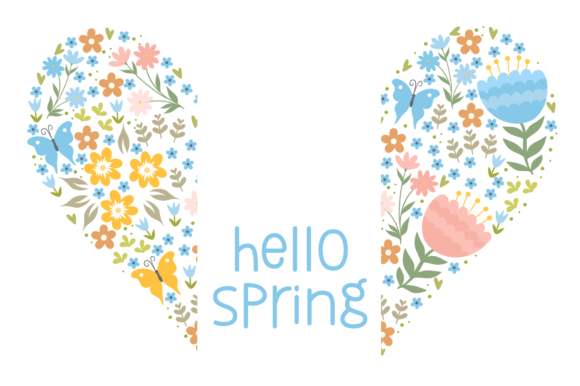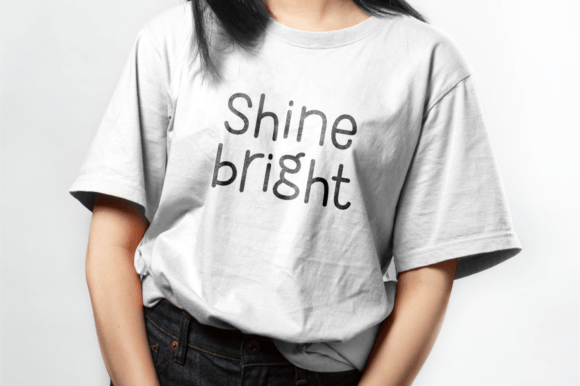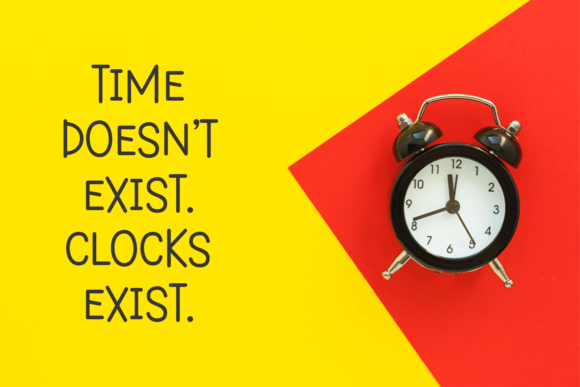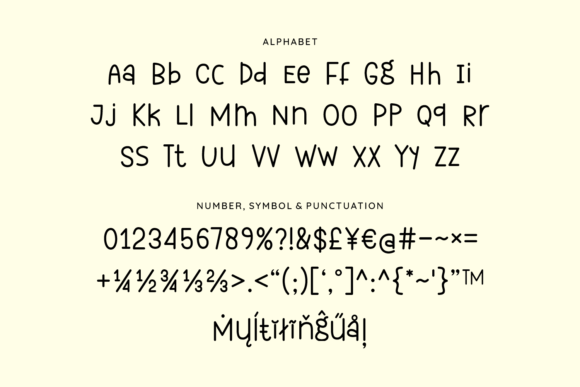
Introduction to Make It Catchy Font
Have you ever stared at a blank page, trying to spark that creative flame that fuels your next big project? For designers, this moment is all too familiar. You’re searching for the perfect combination of style, functionality, and visual appeal to make your design truly shine. That’s where Make It Catchy Font comes in – a stylish handwritten font with a modern twist that’s sure to capture the attention of your audience.
| 👤 Author | Damai (7NTypes) |
This versatile design resource is perfect for any creative project, from social media graphics to branding materials. With its unique, fluid strokes and playful curves, Make It Catchy Font adds a dynamic touch to your designs, making them stand out in a crowded market. Plus, with a transparent background, you can easily layer it with other design elements for a high-quality look that’s simply irresistible.
Key Features of Make It Catchy Font
- Unique, Hand-Drawn Design: A creative, eye-catching font perfect for any project that needs a touch of personality.
- Perfect for Creative Projects: Add a touch of whimsy and fun to your designs, posters, and social media graphics with this playful font.
Honest Review: Make It Catchy Font
As a designer, I’m always on the lookout for unique and high-quality design resources to elevate my creative projects. Recently, I stumbled upon Make It Catchy Font, and I’m excited to share my honest review with you.
What works well: ✨ I love the modern and playful feel of this font. It’s perfect for titles, headings, and even body text in certain contexts. The font is available for free download, which is a huge plus. The transparent background option is also a great feature, allowing for seamless integration with any design element.
- High-quality design with a modern twist
- Perfect for creative projects that require a touch of personality
Limitations: ⚠️ While Make It Catchy Font is a great addition to any designer’s toolkit, I do wish it came in more font weights and styles. Additionally, the font may not be suitable for all types of projects, especially those that require a more formal tone.
Overall, I’m impressed with Make It Catchy Font. It’s a fun and versatile font that can add a much-needed pop of personality to your designs. I’d recommend it to anyone looking for a high-quality design resource that’s easy to use and customize.
Make It Catchy Font
Introduction to Make It Catchy Font
Make It Catchy Font is a high-quality design resource that can elevate your creative project with its unique and stylish typography. It’s available for free download, making it an excellent choice for designers and non-designers alike.
Tips for Getting the Most Out of Make It Catchy Font
To get the most out of Make It Catchy Font, try the following:
- Use it with a transparent background to create a modern and sleek look.
- Experiment with different font sizes and styles to add emphasis to your text.
- Combine Make It Catchy Font with other design elements to create a unique and eye-catching design.
Common Use Cases for Make It Catchy Font
Make It Catchy Font is perfect for:
- Social media graphics and posts.
- Business cards and letterheads.
- Posters and flyers.
- Wedding invitations and event materials.